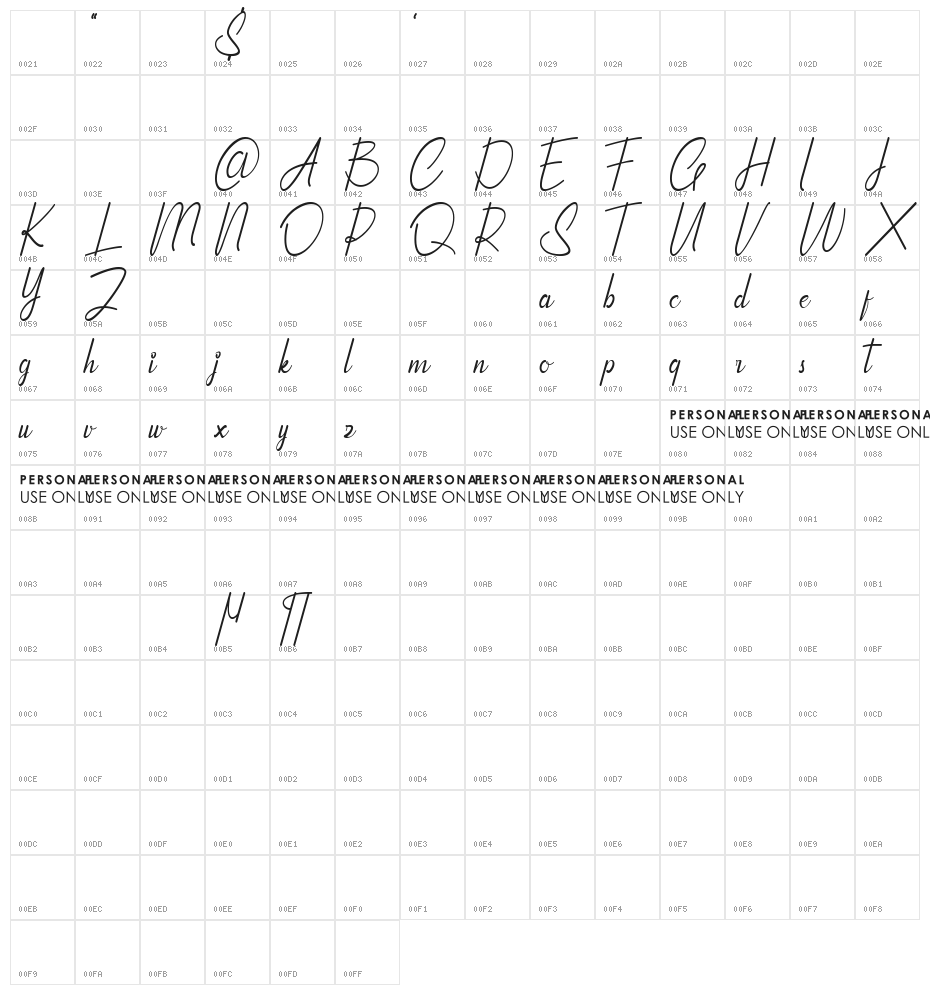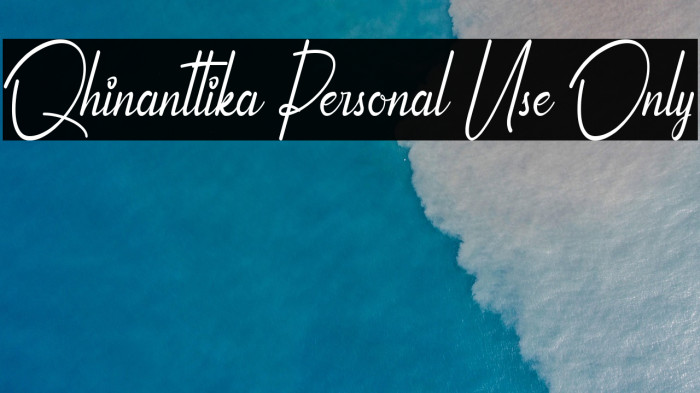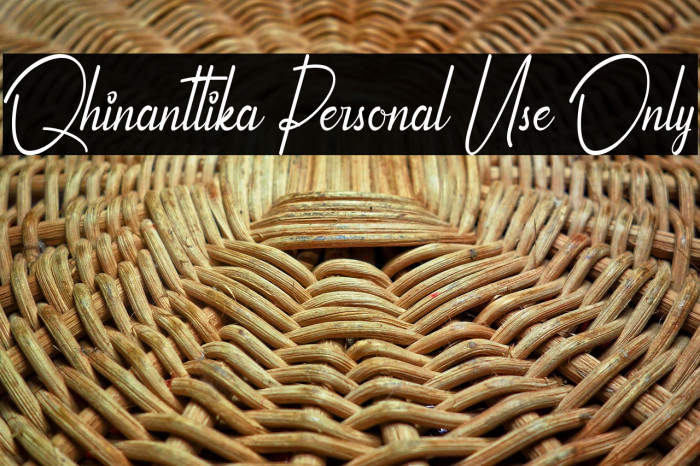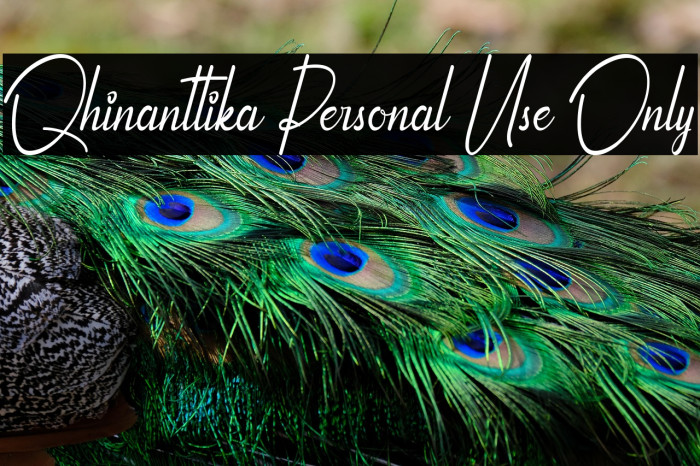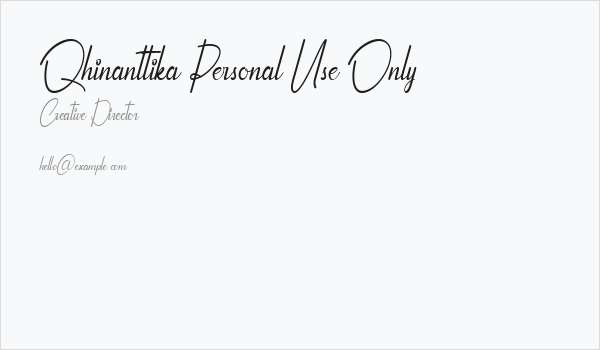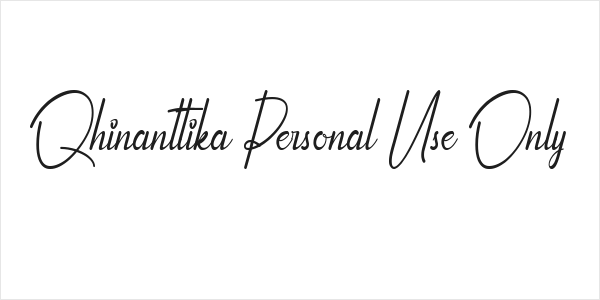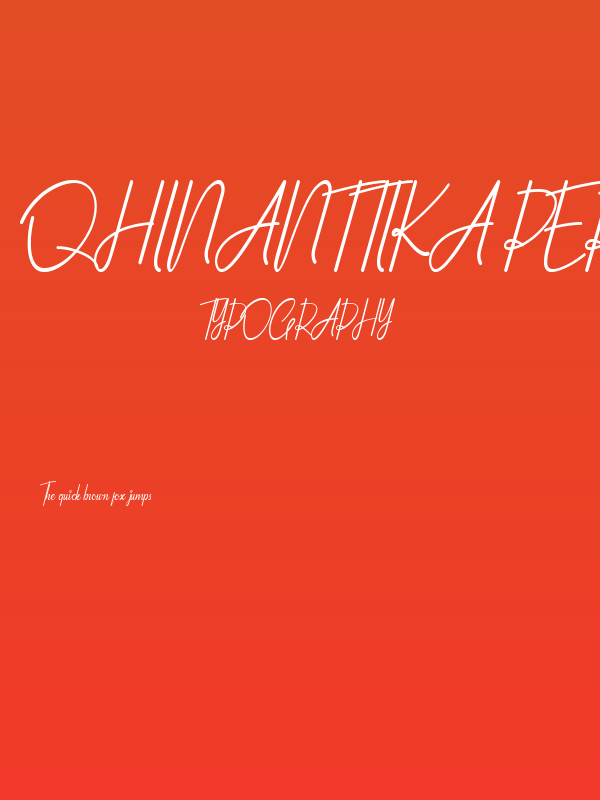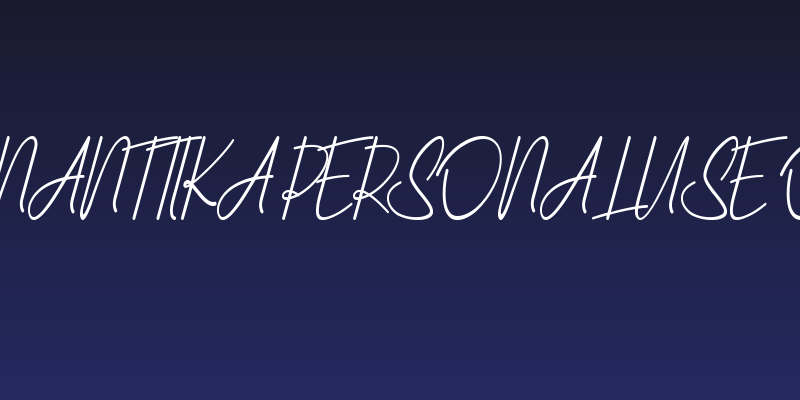
Qhinanttika Personal Use Only Font
Qhinanttika Personal Use Only Description
This elegant script font features a flowing, cursive style with a sophisticated flair. The uppercase letters are tall and slender, with graceful loops and swashes that add a touch of refinement. The lowercase letters maintain a consistent flow, with some characters featuring unique flourishes that enhance their visual appeal. The font's overall design is reminiscent of classic calligraphy, making it ideal for projects that require a touch of elegance and sophistication. The characters are well-spaced, allowing for readability while maintaining an artistic appearance.